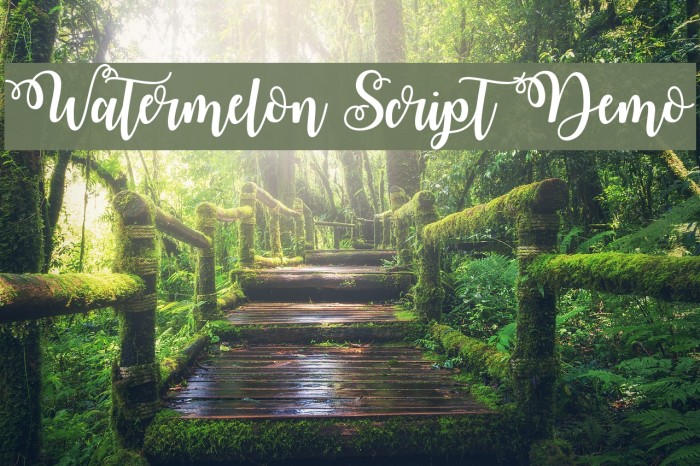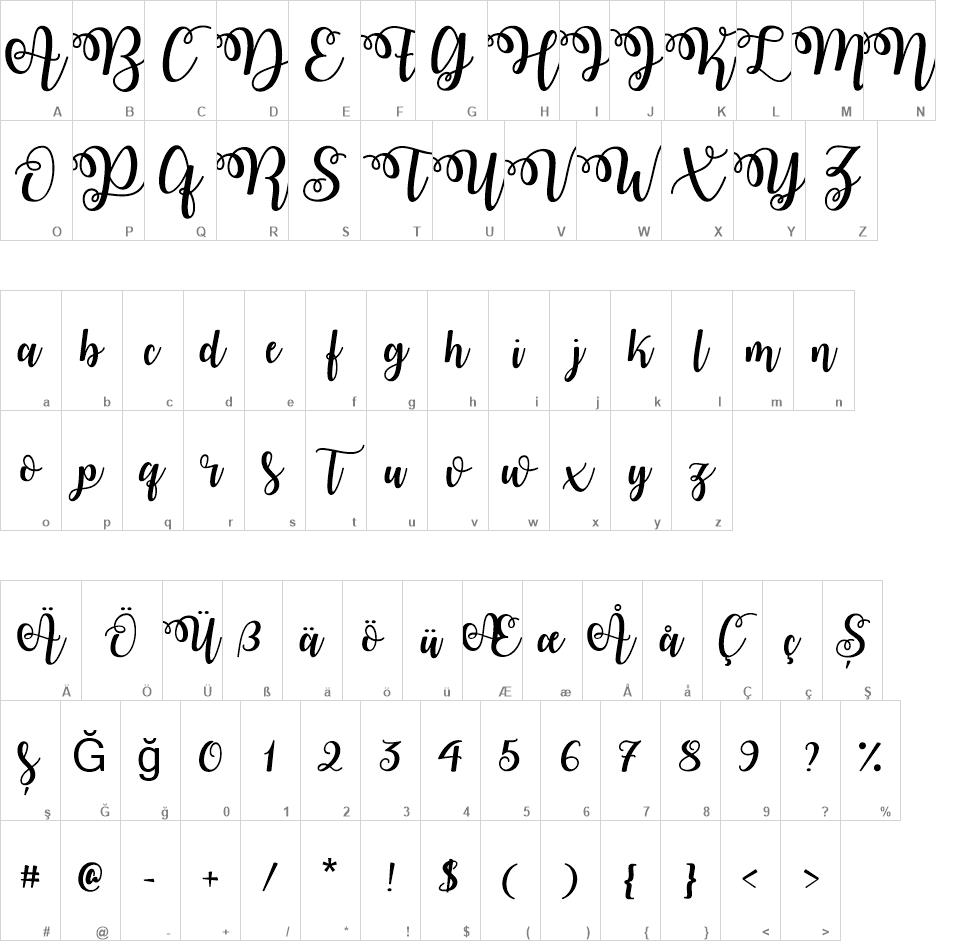
Watermelon Script Font Free Dafont Free. Please, talk with the author for commercial use or for any support. Hello, you seem to have javascript turned off. For any commercial use (anything you profit from), you must send a paypal donation. Watermelon script is free for personal use only. Free download of watermelon script font. The watermelon script font has been downloaded 68,102 times. Please enable it to use the advanced features of this website. Watermelon script is a juicy, bouncy calligraphy font that is ideal for your craft and design initiatives! You can download watermelon script font download that includes chunky, magnolia sky, fontspace, cricut, bold, italic and light weight font. The editorial at dafont search for the best free fonts available to download from the web. We continue our research to find the best fonts that you will need for your design purpose. Font designed by mistis fonts and free for personal use. It's gentle, it's cute, it's enjoyable, and it's mighty. My fonts are free for personal use only. Download free for personal useadd to favoritesdonateshare.
You can read license terms of use. Watermelon script is a juicy, bouncy calligraphy font that is perfect for your craft and design projects! Copyright (c) 2016 by misti's fonts. This collection is full of great fonts that are perfect for. Script | views, 205 downloads. Watermelon script is free for personal use only. Please, talk with the author for commercial use or for any support. You can read license terms of use. Watermelon script demo is a trademark of misti's fonts. Download watermelon script demo font for windows. Please download and enjoy, or can search more similar fonts on befonts. 2 style 4.5 129 downloads. Huge pack of typing options in various styles. Free graphics stuff for all. Free download of watermelon script font. Font designed by mistis fonts and free for personal use. Please enable it to use the advanced features of this website. 25 downloads free for personal use. ✔️ customize your own preview on ffonts.net to make sure it`s the right one for your designs. Watermelon script demo font — by misti's fonts. Download free for personal useadd to favoritesdonateshare. Free fonts for commercial use | download the best brush script, calligraphy and handwritten fonts for logos, branding and other commercial projects free calligraphy fonts (and script fonts, too!) can you ever have enough free calligraphy fonts? Sitede ki tüm fontlar ve yazı şekilleri ücretsizdir. You can download watermelon script font download that includes chunky, magnolia sky, fontspace, cricut, bold, italic and light weight font. Watermelon font free for personal use. The editorial at dafont search for the best free fonts available to download from the web. We continue our research to find the best fonts that you will need for your design purpose. Our collection of best fonts can be downloaded and put to a variety of creative uses. The watermelon script font has been downloaded 68,102 times. For any commercial use (anything you profit from), you must send a paypal donation. Script watermelon script script bd bd script beauty salon script ronde script everglow script lumen script everglow script free molly script absolut script legend script saturday script vanessa script angelic.
The watermelon script demo font contains 233 beautifully designed characters.
Watermelon Script Font What Font Is. We continue our research to find the best fonts that you will need for your design purpose. Font designed by mistis fonts and free for personal use. Download free for personal useadd to favoritesdonateshare. Watermelon script is a juicy, bouncy calligraphy font that is ideal for your craft and design initiatives! My fonts are free for personal use only. Watermelon script is free for personal use only. Hello, you seem to have javascript turned off. It's gentle, it's cute, it's enjoyable, and it's mighty. For any commercial use (anything you profit from), you must send a paypal donation. Please enable it to use the advanced features of this website. The watermelon script font has been downloaded 68,102 times. Free download of watermelon script font. Please, talk with the author for commercial use or for any support. The editorial at dafont search for the best free fonts available to download from the web. You can download watermelon script font download that includes chunky, magnolia sky, fontspace, cricut, bold, italic and light weight font.
Watermelon Script Free Font. Hello, you seem to have javascript turned off. It's gentle, it's cute, it's enjoyable, and it's mighty. You can download watermelon script font download that includes chunky, magnolia sky, fontspace, cricut, bold, italic and light weight font. For any commercial use (anything you profit from), you must send a paypal donation. Watermelon script is a juicy, bouncy calligraphy font that is ideal for your craft and design initiatives! My fonts are free for personal use only. Watermelon script is free for personal use only. Free download of watermelon script font. Font designed by mistis fonts and free for personal use. Please enable it to use the advanced features of this website. We continue our research to find the best fonts that you will need for your design purpose. The editorial at dafont search for the best free fonts available to download from the web. Please, talk with the author for commercial use or for any support. The watermelon script font has been downloaded 68,102 times. Download free for personal useadd to favoritesdonateshare.
Watermelon Script Font What Font Is. We continue our research to find the best fonts that you will need for your design purpose. Download free for personal useadd to favoritesdonateshare. Please enable it to use the advanced features of this website. Hello, you seem to have javascript turned off. Watermelon script is a juicy, bouncy calligraphy font that is ideal for your craft and design initiatives! Font designed by mistis fonts and free for personal use. The watermelon script font has been downloaded 68,102 times. You can download watermelon script font download that includes chunky, magnolia sky, fontspace, cricut, bold, italic and light weight font. Watermelon script is free for personal use only. Free download of watermelon script font. My fonts are free for personal use only. Please, talk with the author for commercial use or for any support. The editorial at dafont search for the best free fonts available to download from the web. For any commercial use (anything you profit from), you must send a paypal donation. It's gentle, it's cute, it's enjoyable, and it's mighty.